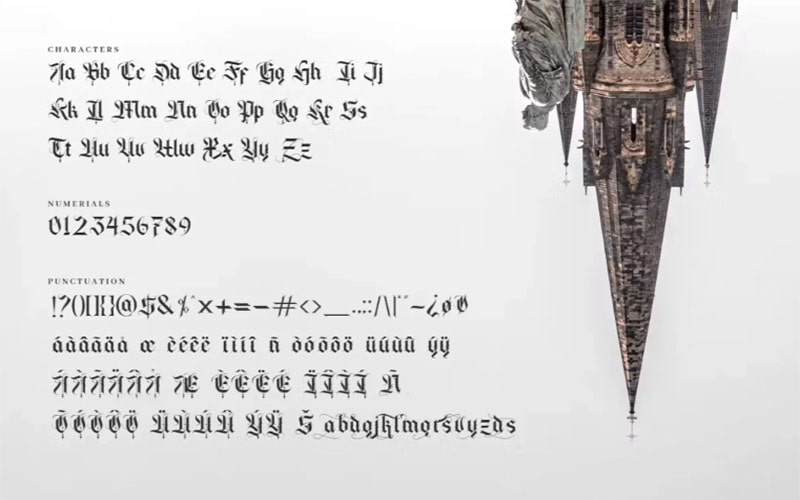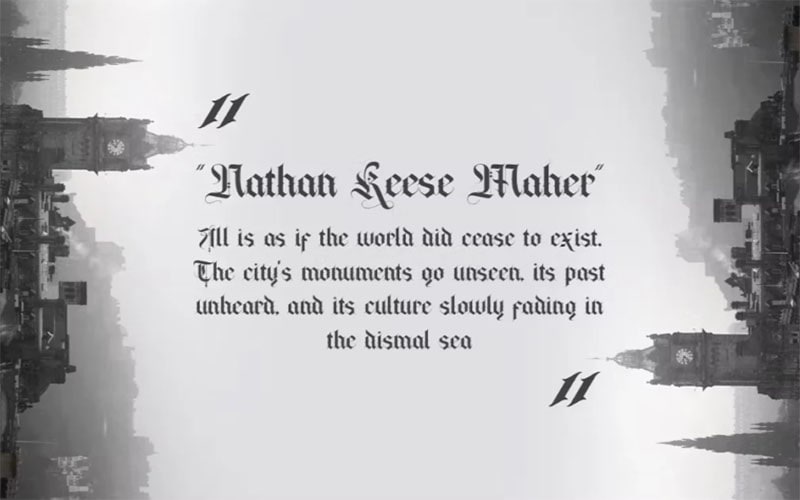
The Cambridge Font is a sophisticated and versatile typeface that embodies the elegance and refinement associated with its namesake, the prestigious University of Cambridge.
Jason Castle took charge of designing this typeface, a talented type designer known for creating fonts that blend classical beauty with modern functionality.
His aim with Cambridge was to create a typeface that exudes timeless elegance, suitable for a wide range of applications from academic publishing to high-end branding.
It features elegant, well-proportioned letterforms with refined serifs and a moderate contrast between thick and thin strokes, ensuring readability and visual appeal.
Cambridge Font
| Font Name: | Cambridge Font |
| Style: | Blackletterd, Medieval, Typeface |
| Font Designer: | Eric Gill |
The Cambridge Font is available in several styles such as Regular, Italic, Bold, and Bold Italic. Each caters to different design needs while maintaining a cohesive and refined appearance.
The styles make Cambridge Font highly versatile and suitable for Academic and Educational Materials, Editorial Design, Branding and Corporate Identity, Invitations and Stationery, and Web Design.